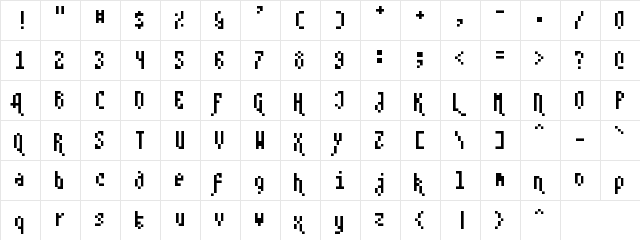
Mono a Mano Regular
| Designer | NAL |
Design Context for Mono a Mano Typeface
Mono a Mano uses fixed-width spacing throughout, giving it the structured, systematic character associated with coding environments and technical documentation.
Pro Tip: Pair Mono a Mano with a proportional sans for UI contexts where code-style labels and regular body copy need to coexist.